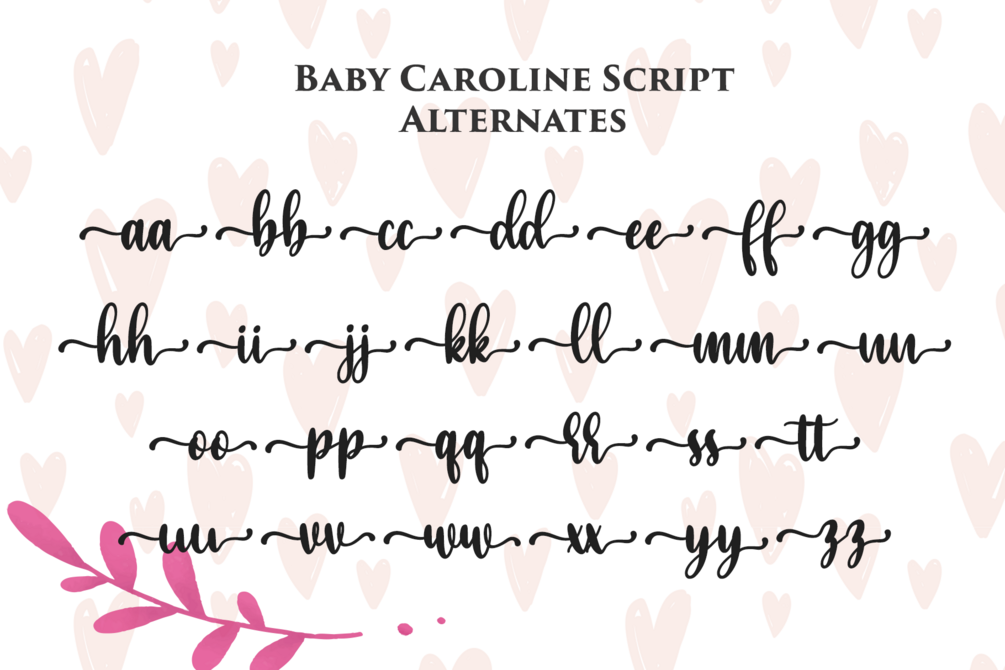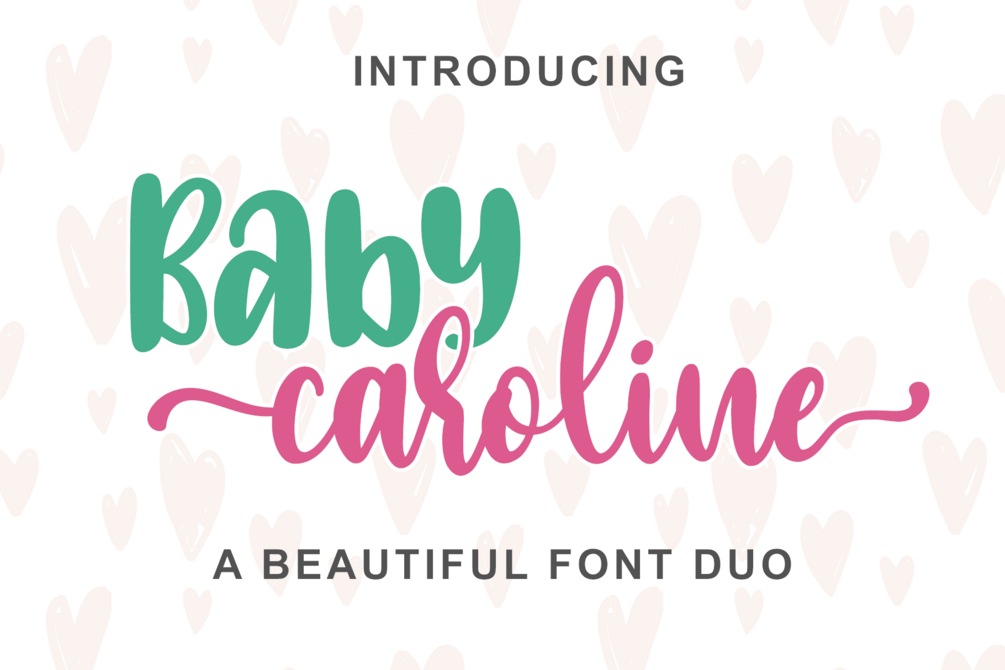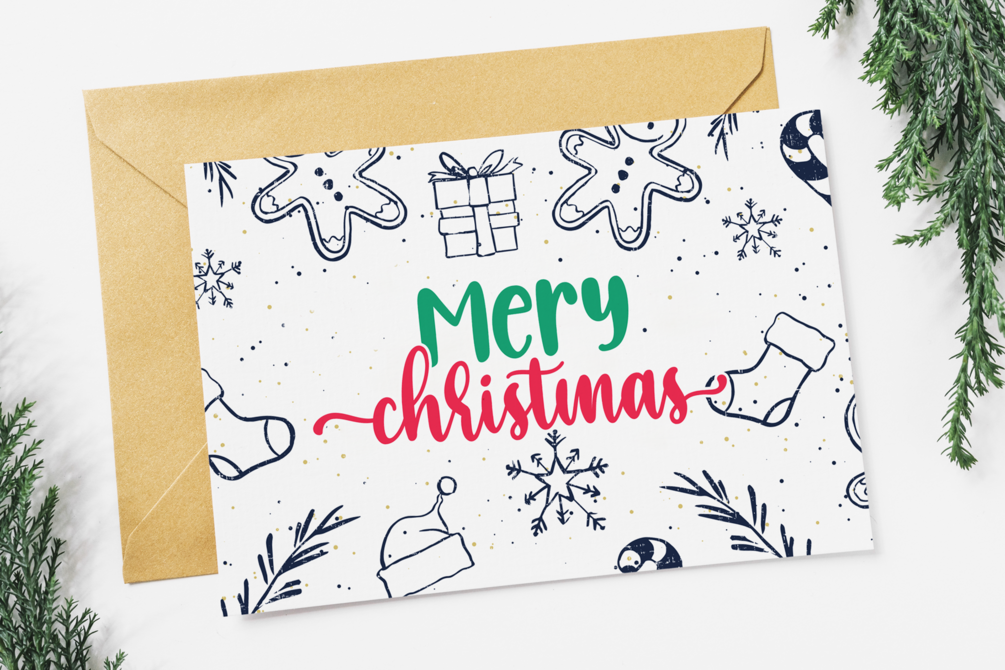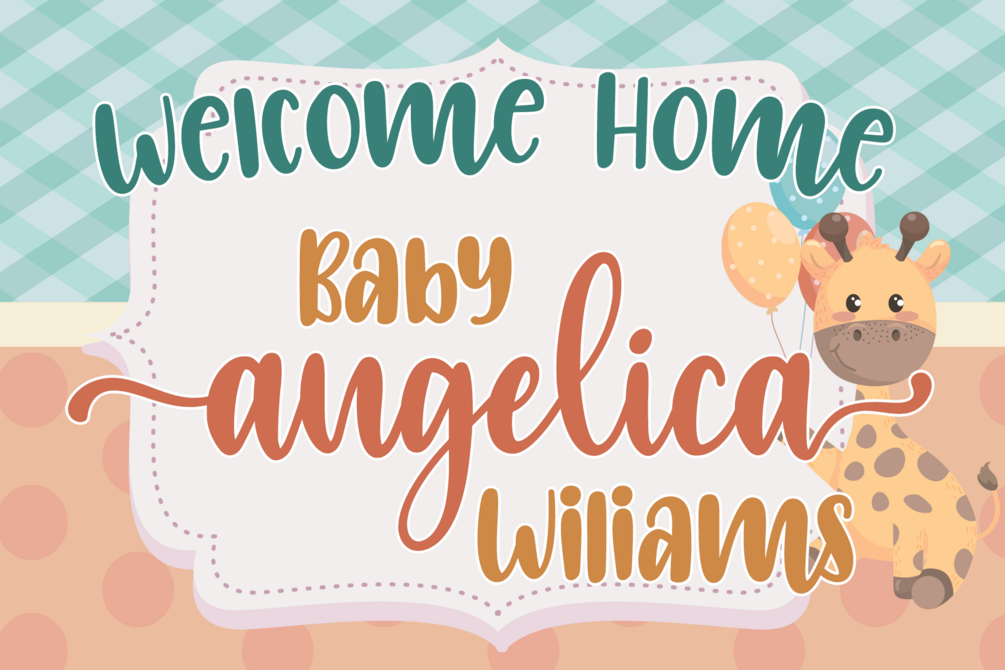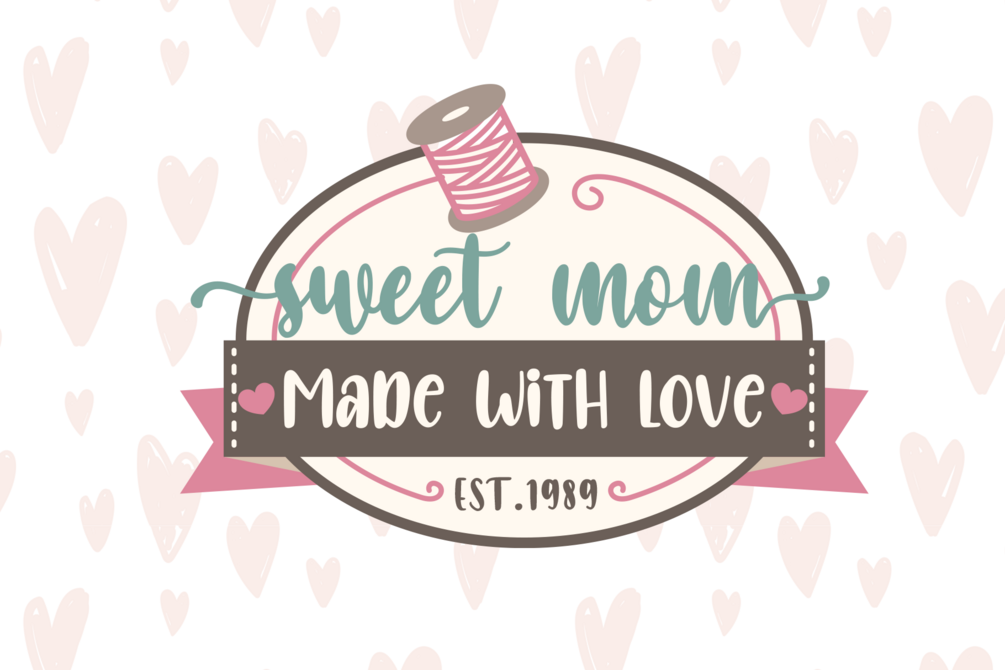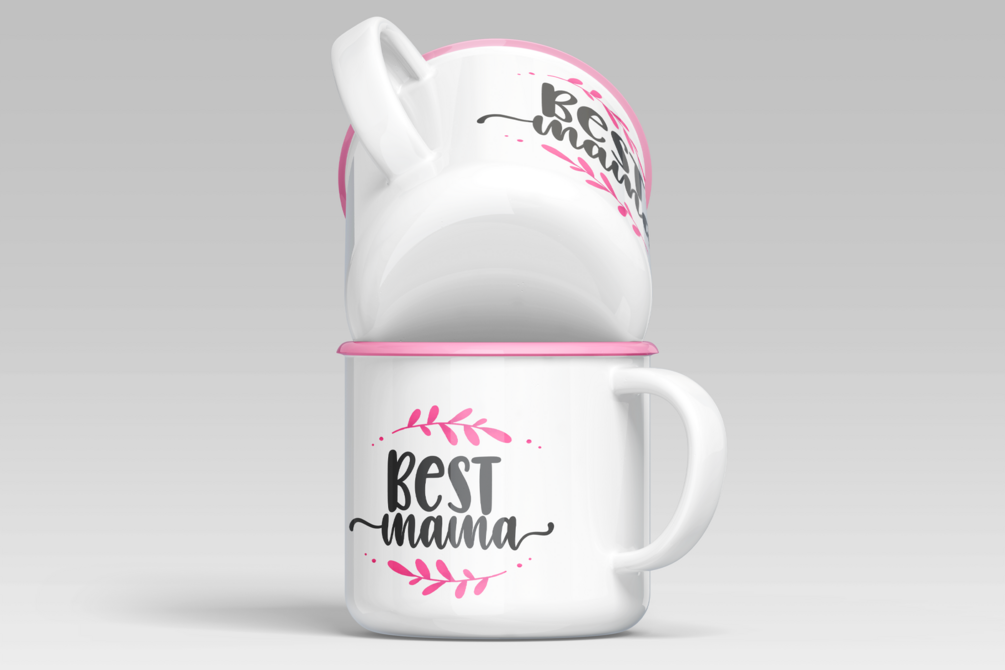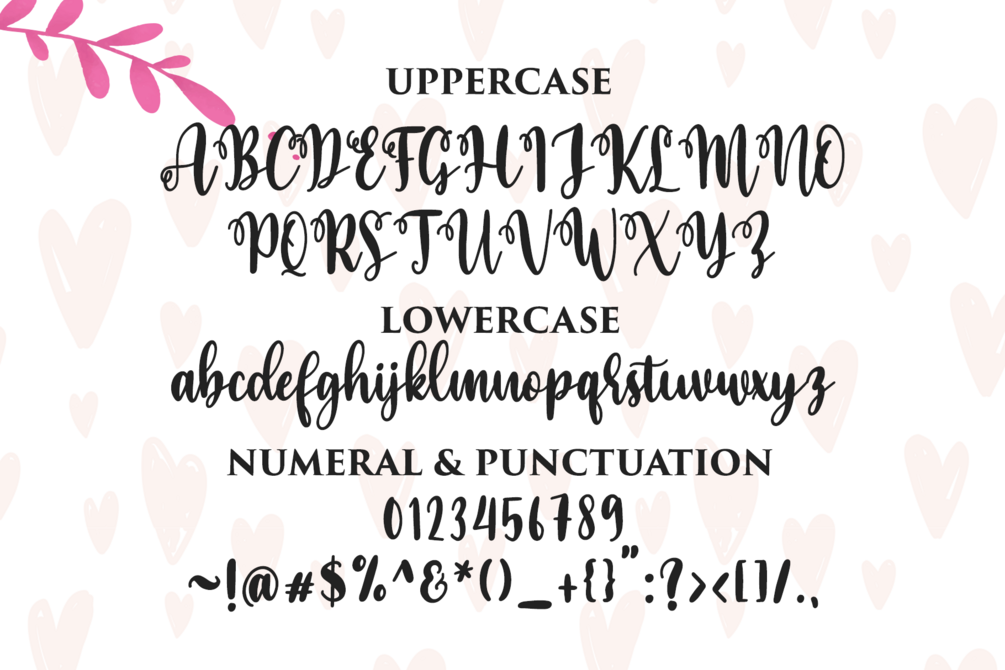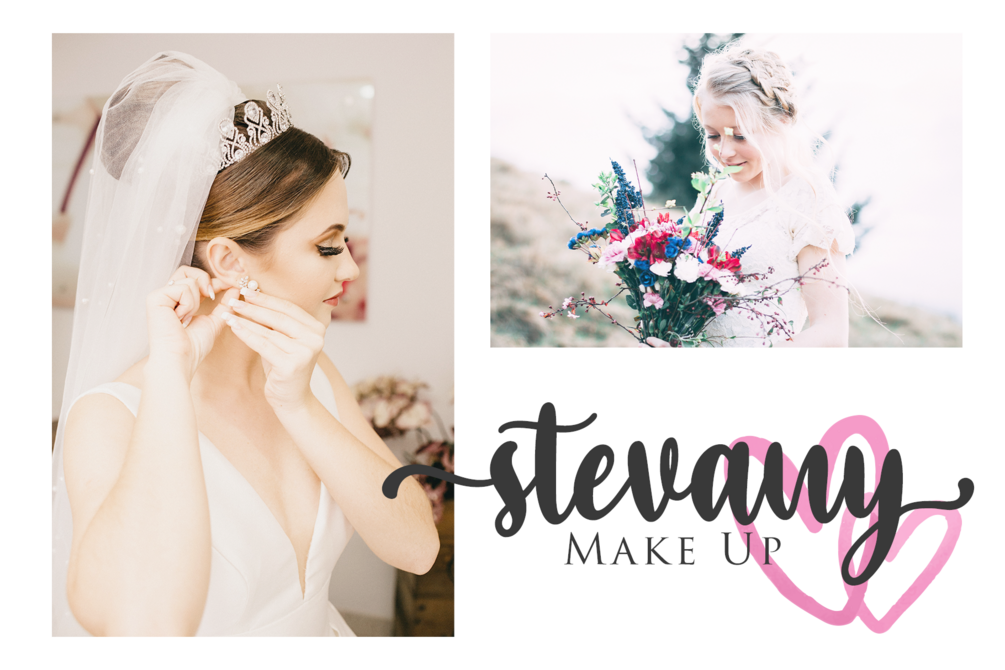
Baby Caroline
πŸ’• Baby Caroline – The Elegant Handwritten & Serif Font Duo
Meet Baby Caroline, a stunning font duo that combines the grace of a handwritten script with the timeless charm of a modern sans serif. ✨
Delicate, elegant, and beautifully balanced β€” this duo is designed to add a touch of sophistication and warmth to any creative project.
From letterheads, invitations, branding, stationery, and logos to social media quotes and product packaging, Baby Caroline fits perfectly into every design that deserves a soft yet luxurious feel.
• Elegant Ligatures
Let your designs bloom with the charm of Baby Caroline β€” where elegance meets simplicity, and every word feels beautifully handwritten. 🌸